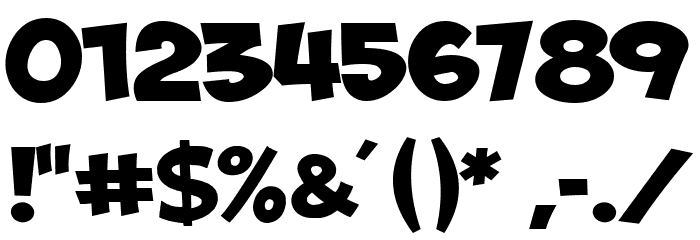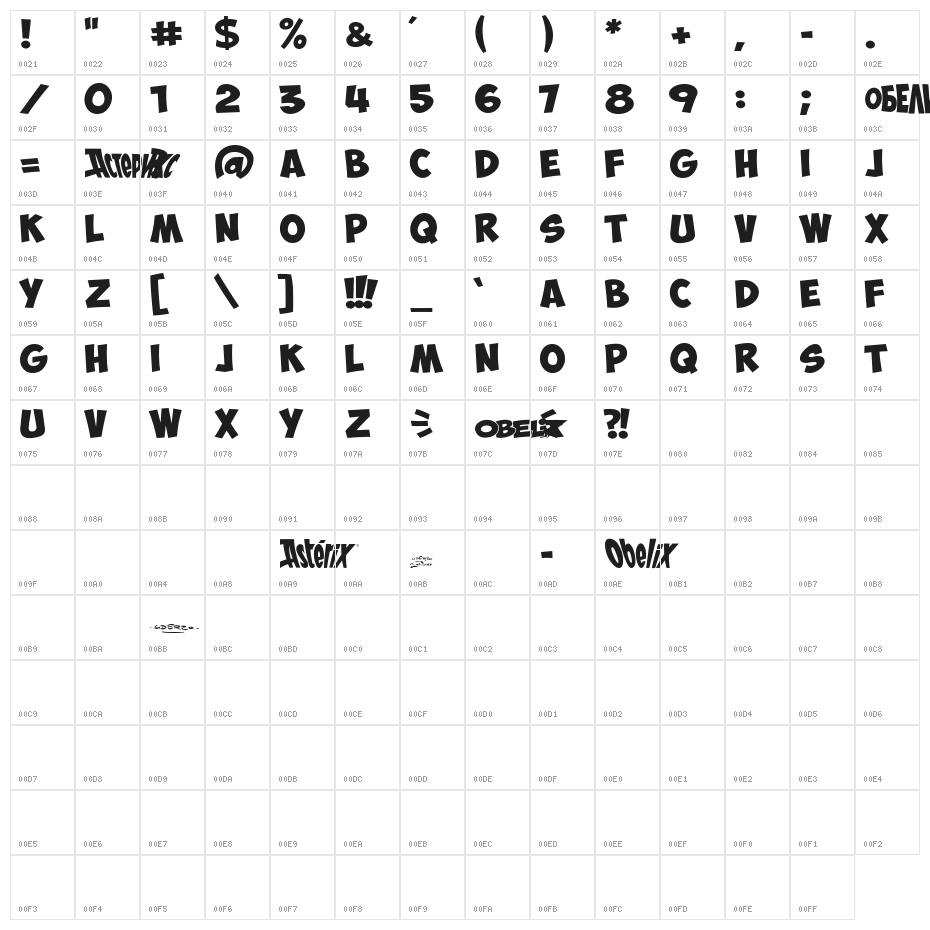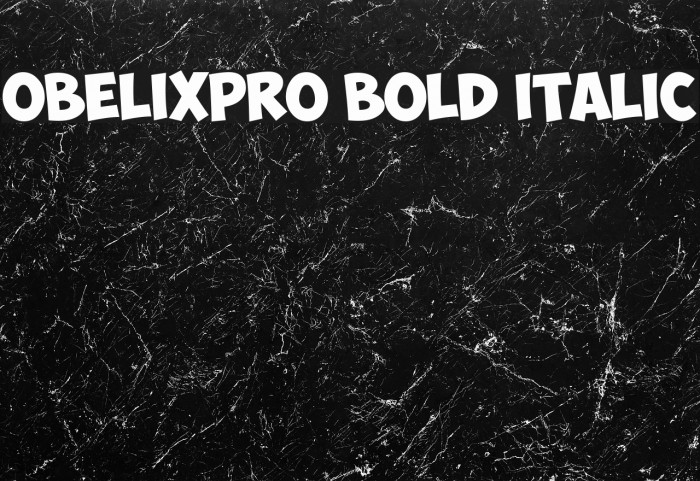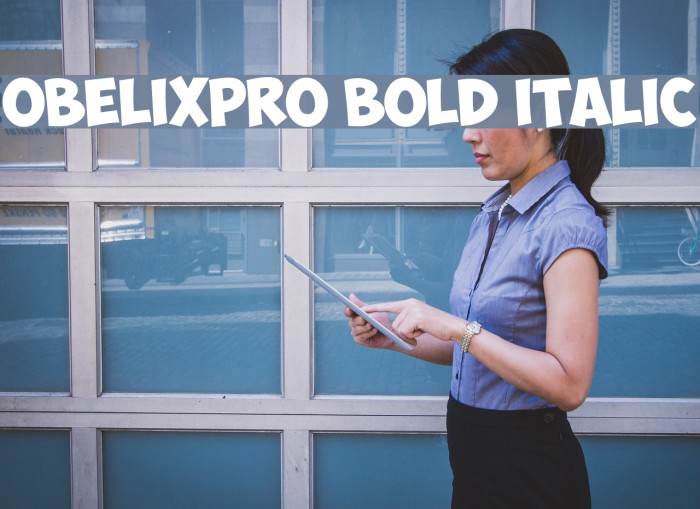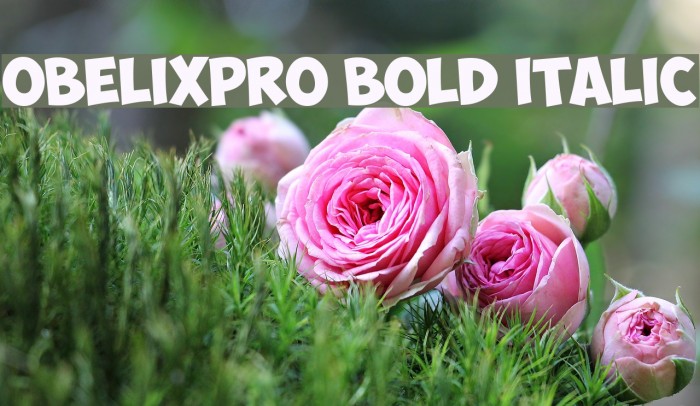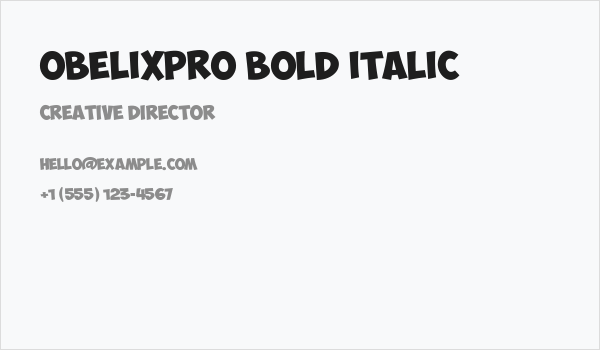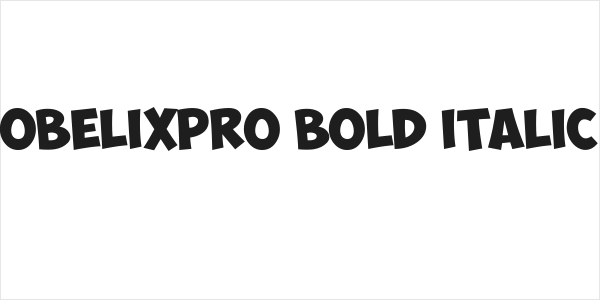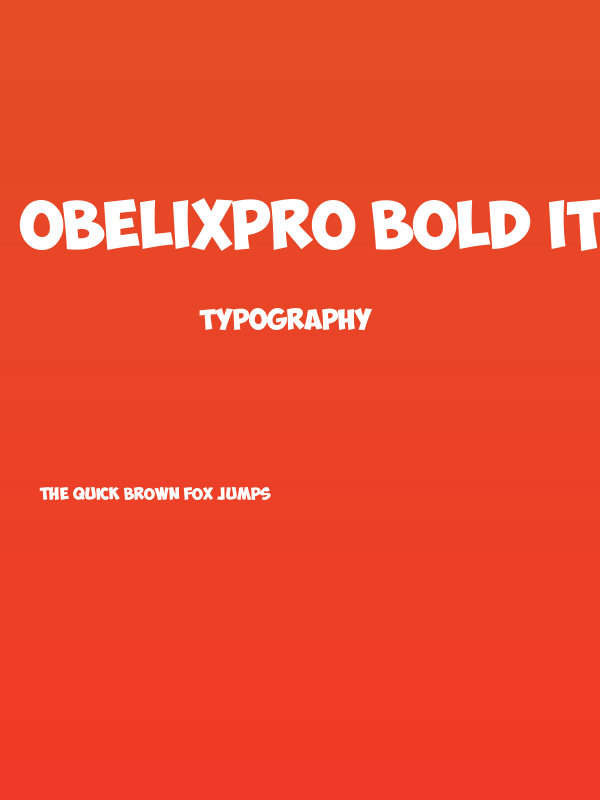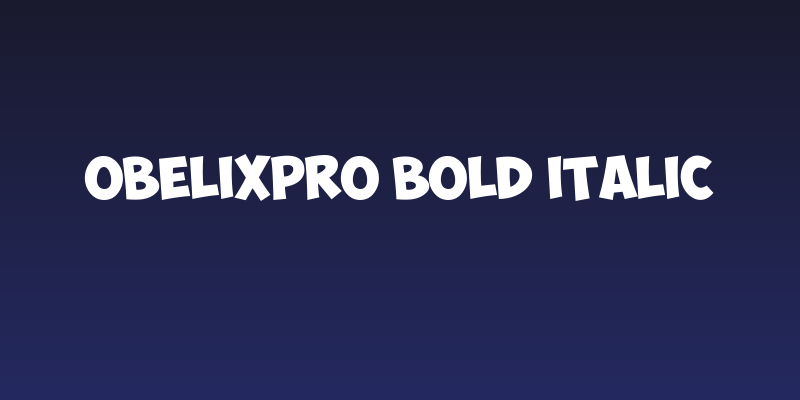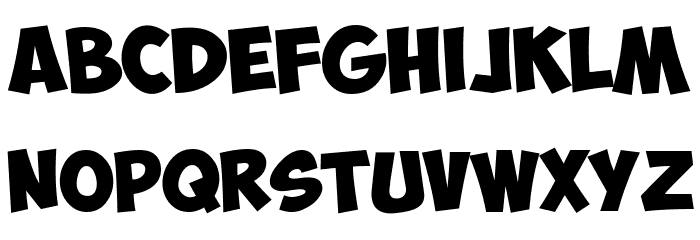
ObelixPro Bold Italic Font
ObelixPro Bold Italic Description
This font features a bold and playful style with a distinct italic slant, giving it a dynamic and energetic appearance. The characters are thick and rounded, with a slightly exaggerated width that enhances its boldness. The uppercase and lowercase letters maintain a consistent style, with smooth curves and a uniform stroke thickness. The numbers and special characters follow the same playful design, making the font suitable for a variety of creative applications. Its bold and italic nature makes it stand out, perfect for grabbing attention.
| Overall Style | Playful and Dynamic |
| Proposed Projects | Ideal for children's books, comic strips, playful branding, and eye-catching headlines. |